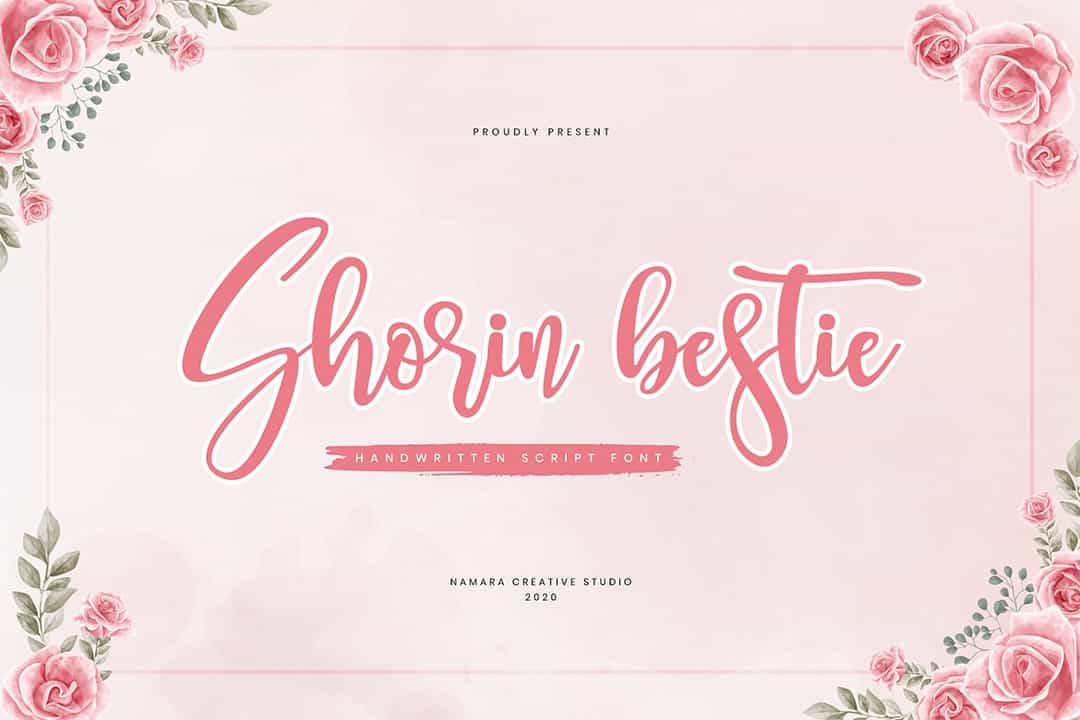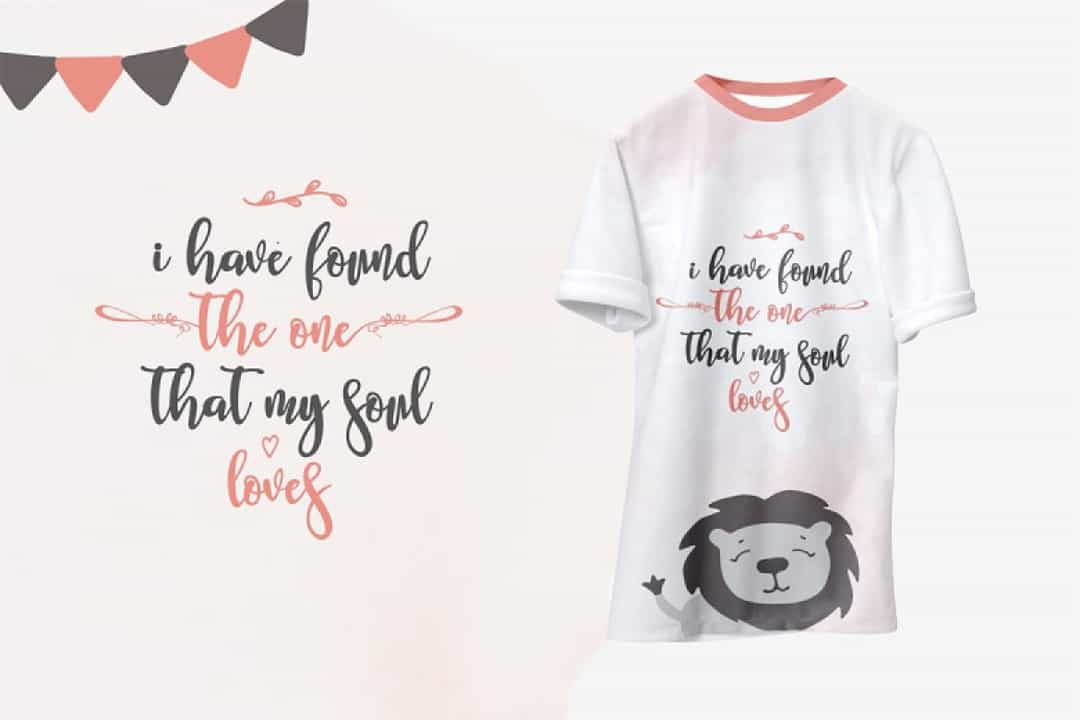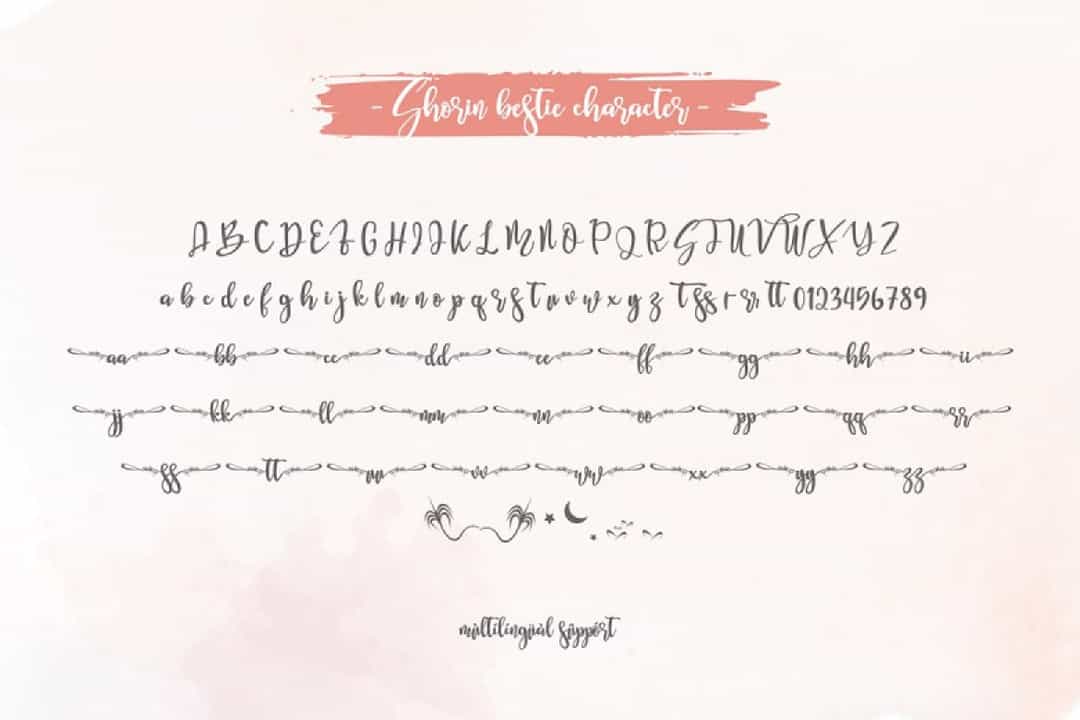
Shorin Bestie Font is a cute calligraphy script with PUA encoded for faster access to all the characters of the font! With supporting swashes for the beginning and end of characters, such a symbol for the font, this typeface is ideal for use in wedding invitations, thank you cards, greeting cards, business cards, logos and any design that needs cursive elements.